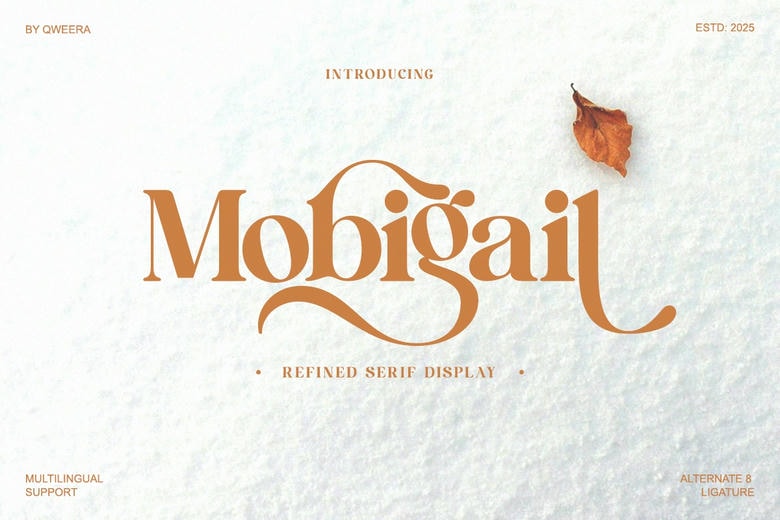
Mobigail Font
Mobigail is a Refined Serif Display typeface that can easily combine the old elegant look with the new flowing curves to provide a really beautiful appearance. It is a gorgeous Mobigail font with a perfect balance between a high-contrast serif and interesting swash alternates, which are especially pronounced in the lowercase ascenders and descenders and that have a flowing, dip-like appearance that is reminiscent of a trademark.
Its polished, cozy and welcoming quality is what makes it one giant in the luxury branding and the elite editorial design. Multilingual support is vast and the available options in alternate and ligatures are numerous enough to make the Mobjigail typeface immune to many options and offer a customized, hand-made touch to any headline or logotype. Select the Mobigail font and provide your projects, whether it is wedding invitations or fashion magazines, with the premium, sophisticated and absolutely unique voice that appeals to the timeless style.
Mobigail Serif Font